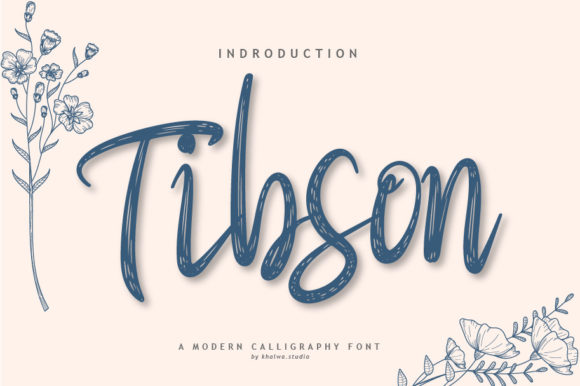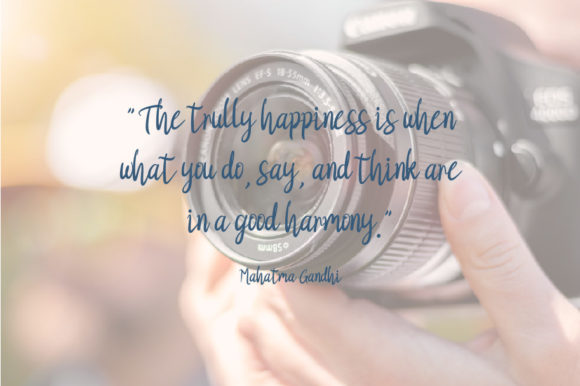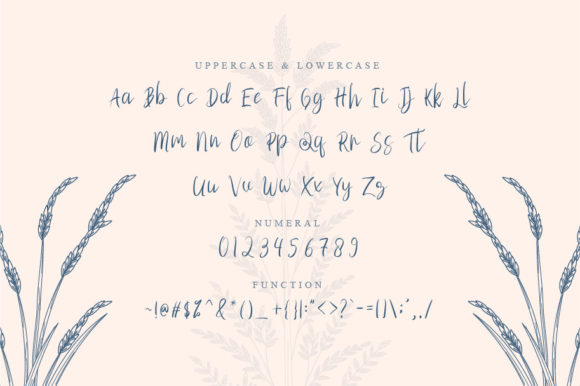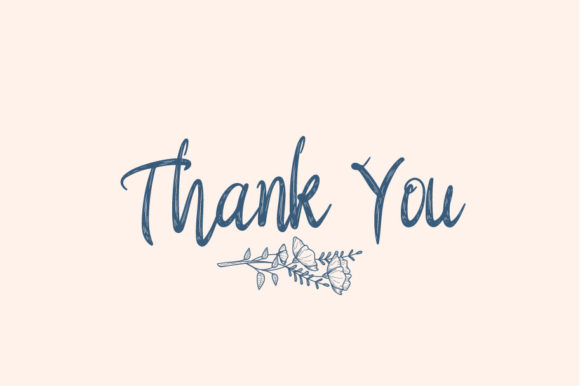
Tibson Script Font
About Tibson Script Font
Tibson Script is a lovely brushed handwritten font. It is the best choice for creating eye catching logos, branding and quotes. Every letter has a unique and beautiful touch, which will make your design come alive!